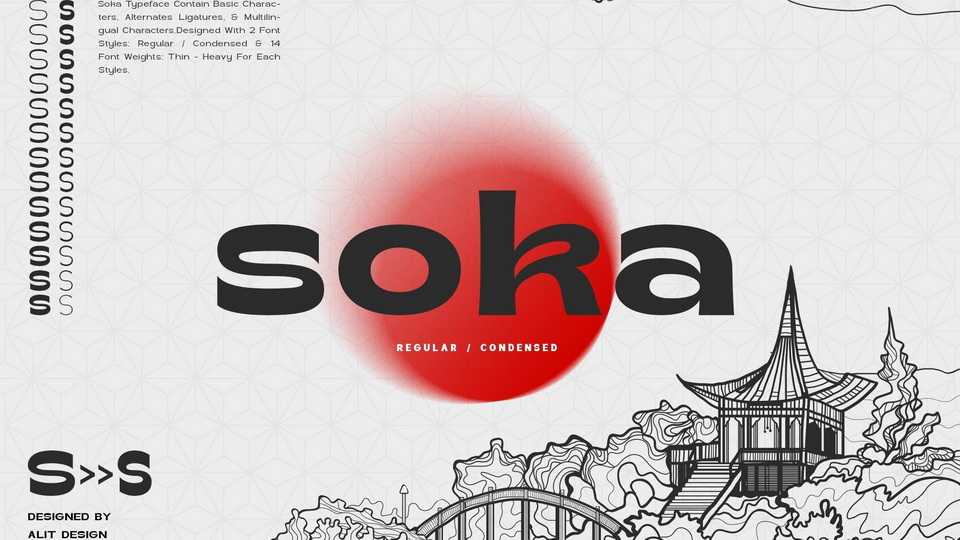
Download Soka font, a reverse contrast display typeface inspired by a retro style but still looks modern and unique. Soka is a cool sans serif typeface for headers and posters.